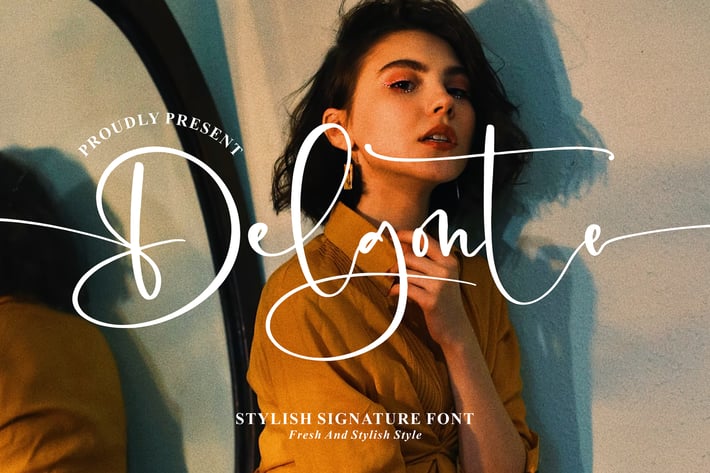
Delgonte Signature Font
Delgonte Signature is an elegant and modern handwritten font that blends the charm of calligraphy with contemporary sophistication. With its smooth curves and refined letter connections, this font exudes a stylish and timeless personality — perfect for projects that need a luxurious handwritten touch.
Elegant handwritten signature style
Natural calligraphy flow with smooth ligatures
Refined letterforms for a luxurious aesthetic
Branding and logo design
Wedding invitations and stationery
Social media graphics and quotes
Fashion or beauty industry visuals
Product packaging and business cards
* Elegant titles and signature-style text
Graceful, stylish, and effortlessly beautiful — Delgonte Signature brings a personal and refined touch to every design.